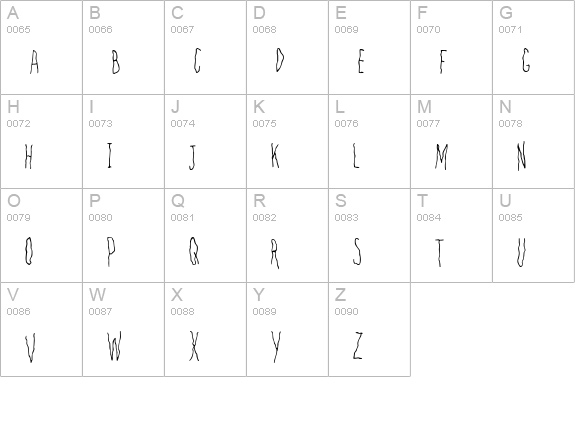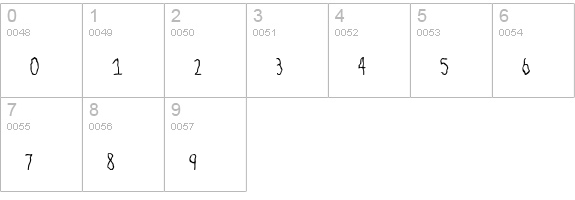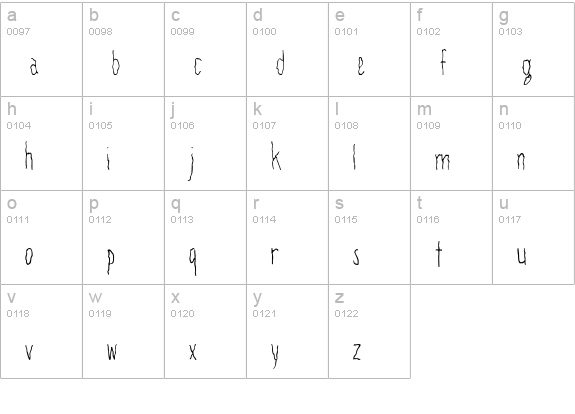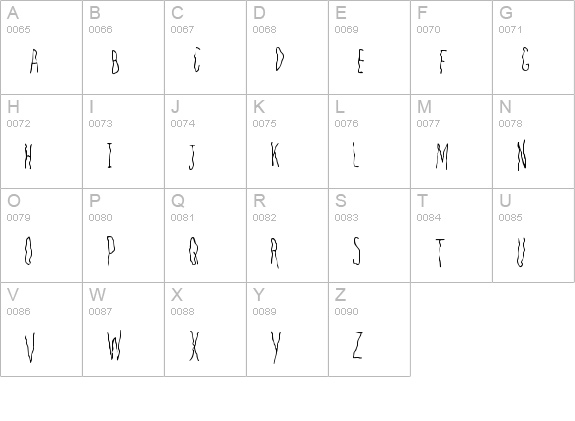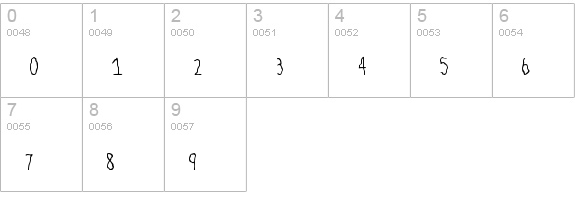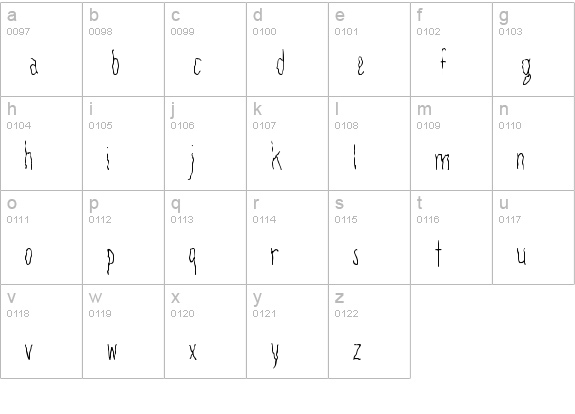
Filamental Font Details
Filamental font is a modern and stylish typeface that exudes elegance and sophistication. With its sleek lines and unique design, this font is perfect for a wide range of design projects, from branding to editorial layouts. The clean and minimalist aesthetic of Filamental font makes it versatile and easy to read, making it an excellent choice for both print and digital designs. The best part about Filamental font is that it is free to download at FontsMarket.com. This means that you can easily access this beautiful font and use it in your projects without any cost. Whether you are a designer looking for a new font to add to your collection or a business owner in need of a fresh look for your branding, Filamental font is the perfect choice. Download it today and add a touch of sophistication to your designs.